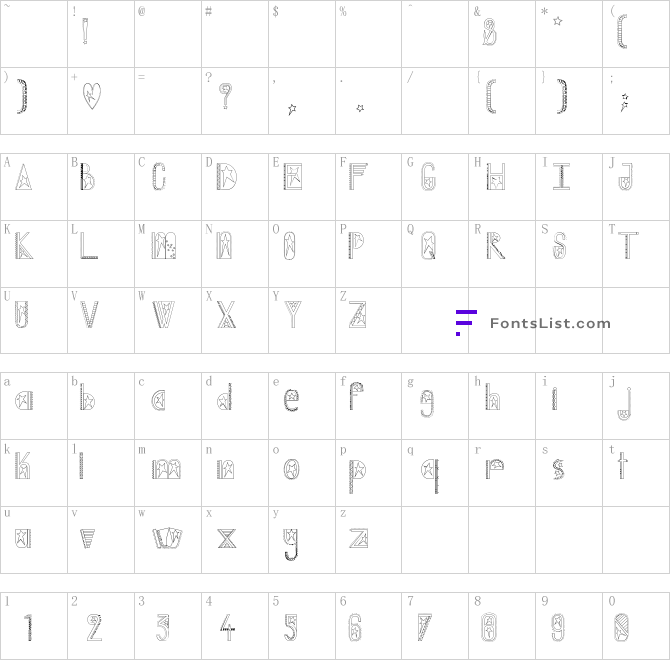
- Font Name:Captain A
Captain-A.otf is a very beautiful artistic font, Captain-A.otf is widely used in the design and printing of various books and pictures,Captain-A.otf has a strong visual impact,Captain-A.otf is a commonly used font in newspapers, magazines and books, and is used in posters, e-commerce Poster design, store design, logo design, font design and other fields.Captain-A.